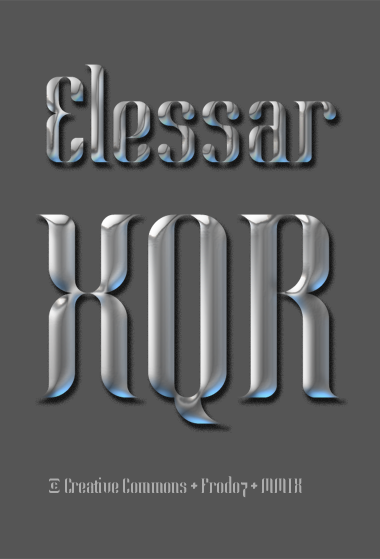
Elessar
This is the bigger brother of Eärendil. Same concept with small modifications here and there. Medieval numbers.
If the font wasn't beautiful enough I would have given this a 10 just for the sample :)
Nice sample! And nice FS.
Beautiful. I love the Q, X, a, g, k, and x.
Excellent use of the medium for an XL effect.
This is a gem, a solid FULL latin face. Nice work! :) and the sample is very nice.